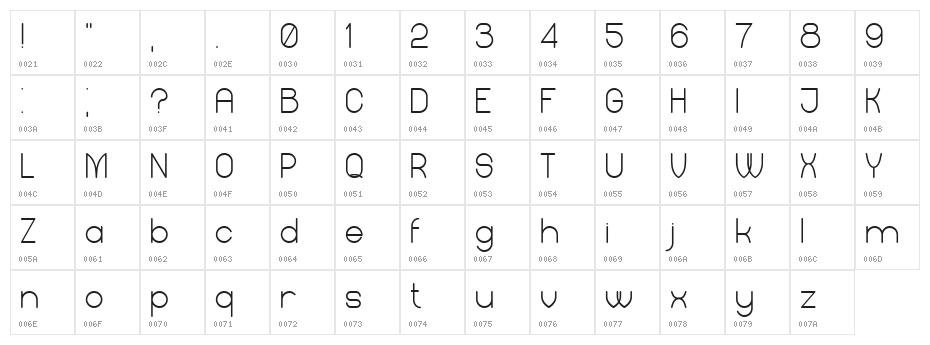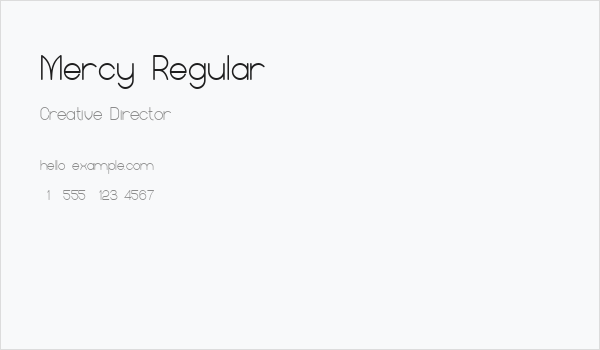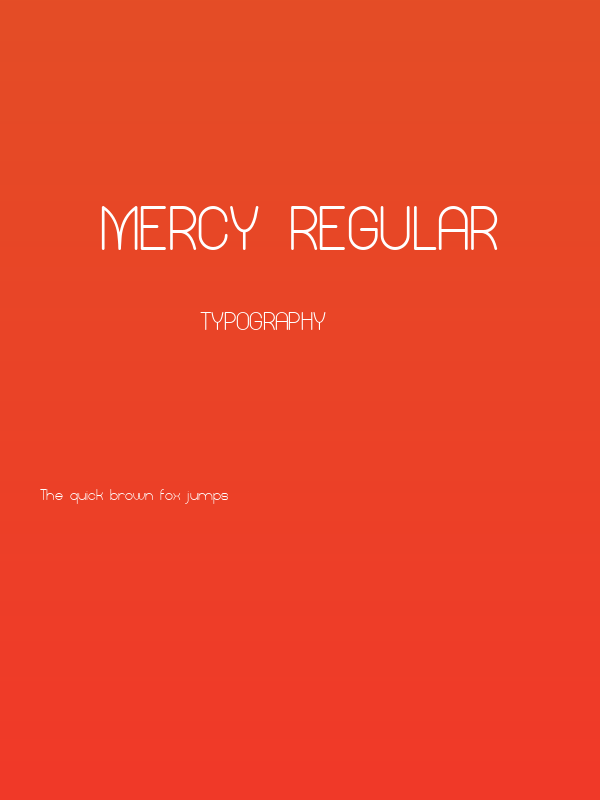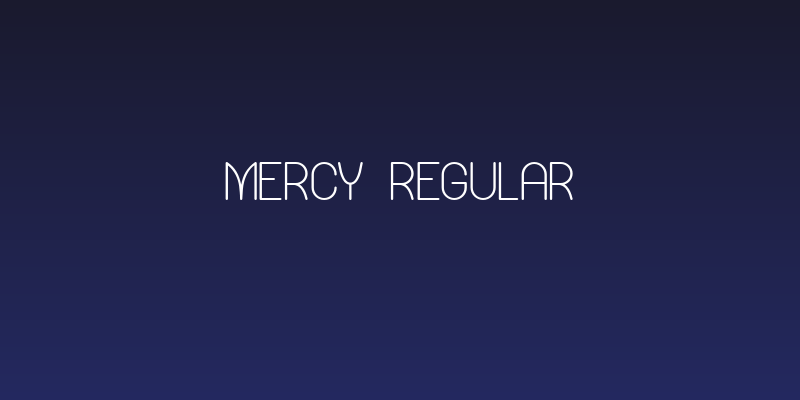
Mercy Regular Font
Mercy Regular Description
This font features a clean, geometric design with rounded edges, giving it a modern and approachable appearance. The uniform stroke width and open counters enhance readability, while the rounded terminals add a friendly touch. Its minimalist style is both versatile and contemporary, making it suitable for various design applications. The characters are evenly spaced, providing a balanced and harmonious look. The numerals and special characters maintain the same aesthetic, ensuring consistency across all elements.
| Proposed Projects | Ideal for branding, web design, advertising, and editorial layouts where a modern and friendly look is desired. |